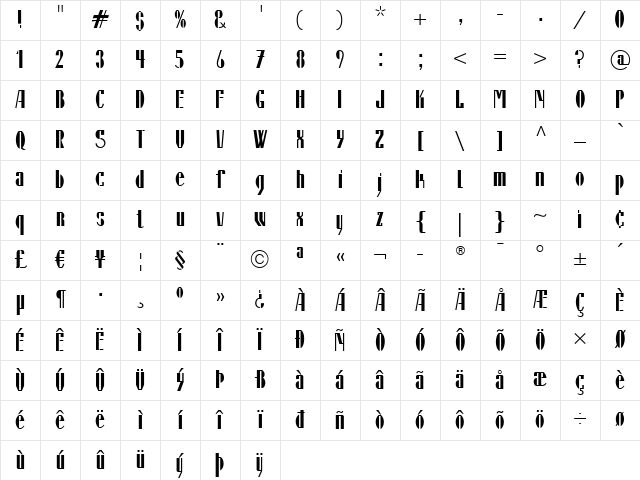
Isilda LT is a composed and adaptable typeface that performs quietly and consistently across a wide range of design contexts. Its slender proportions lend an understated elegance to any composition.
Pro Tip: Use Isilda LT in both headline and body roles to test its range before committing to a single application.